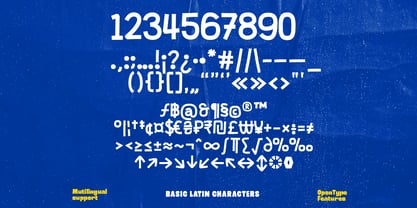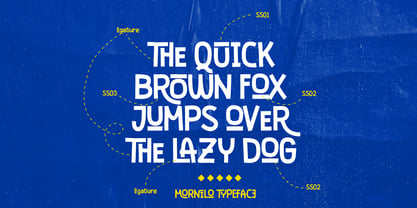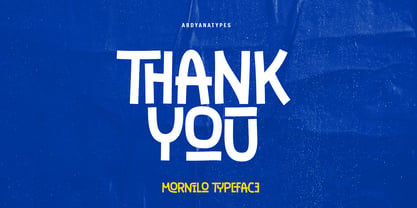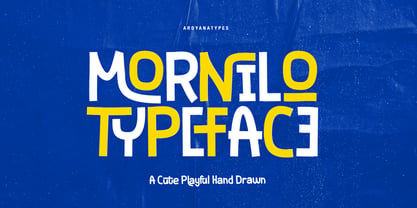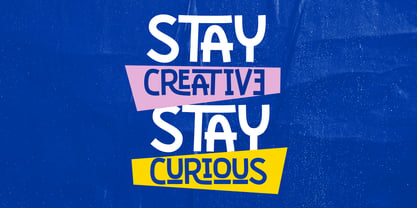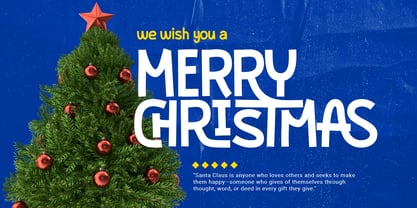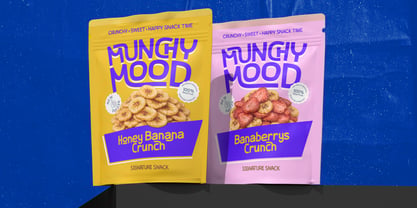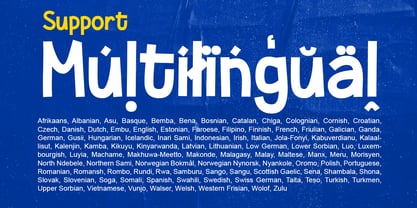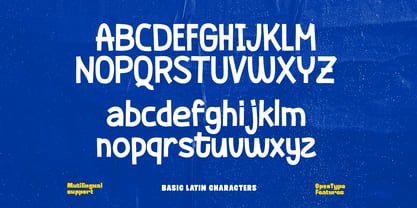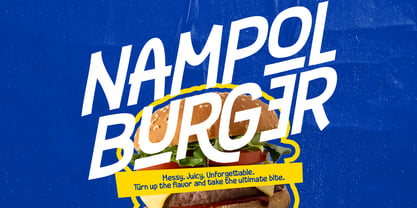
Mornilo
by Ardyanatypes
The Mornilo Font Family was designed by Ardyana Putra and published by Ardyanatypes. Mornilo contains 1 styles. More about this family
Mornilo Typeface is a cute and playful hand-drawn display font designed to bring joy, personality, and creativity into your designs. Inspired by spontaneous handwriting and cheerful doodles, this typeface captures the natural rhythm of hand lettering while maintaining excellent readability. Each letter is crafted with unique curves and slightly irregular shapes, giving the font a lively and friendly character. The playful structure makes it perfect for designs that need warmth, fun, and a touch of creativity. What makes Mornilo truly special is its rich set of OpenType features. The font comes with a large collection of ligatures and stylistic alternates for both uppercase and lowercase letters, allowing you to create dynamic and expressive typography effortlessly. By simply activating OpenType features, your text will automatically transform into more natural and interesting letter combinations. This flexibility makes Mornilo incredibly versatile for a wide range of creative projects—from playful branding to cheerful packaging and engaging social media graphics. Whether you’re designing for children’s products, fun brands, creative posters, or digital content, Mornilo Typeface will add a lively personality that stands out.
Designers: Ardyana Putra
Foundry: Ardyanatypes